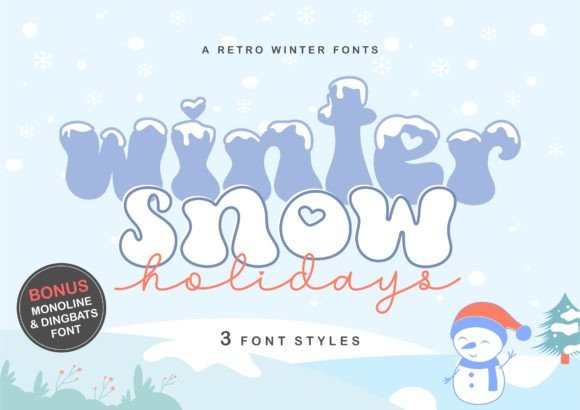
Wintersnow Holidays Font: Elevate Your Winter-Themed Projects with a Retro Twist
As the winter season approaches, designers and creatives are on the lookout for unique and captivating fonts to elevate their holiday-themed projects. If you’re searching for a font that embodies the spirit of winter with a retro and groovy touch, look no further than Wintersnow Holidays Font. This fantastic display font comes in three distinct styles – solid, outline, and snow effect – ensuring that your Christmas or winter-themed projects stand out with a mesmerizing outcome.
Key Features of Wintersnow Holidays Font
- Retro and Groovy Design: Wintersnow Holidays Font boasts a unique, vintage-inspired design that adds a fun and playful touch to any winter-themed project.
- Three Distinct Styles: The font comes in three styles: solid, outline, and snow effect, providing versatility and allowing you to experiment with different looks to suit your project’s needs.
- High-Quality and Readable: Designed with high-quality and readability in mind, Wintersnow Holidays Font ensures that your message is conveyed clearly and effectively, even at smaller sizes.
Design Tips for Using Wintersnow Holidays Font
To make the most of Wintersnow Holidays Font, consider the following design tips:
- Mix and Match Styles: Combine the solid, outline, and snow effect styles to create visually appealing contrasts and hierarchies within your design.
- Pair with Complementary Fonts: For body text or secondary headings, pair Wintersnow Holidays Font with clean, sans-serif fonts to maintain readability and create a balanced look.
- Experiment with Colors: While traditional winter colors like red, green, and blue work well, don’t be afraid to experiment with metallic colors or pastels to give your design a unique twist.
- Utilize Snow Effect Wisely: The snow effect style can add a whimsical touch to your designs. Use it sparingly for headings or highlights to draw attention without overwhelming the viewer.
Project Ideas Featuring Wintersnow Holidays Font
Wintersnow Holidays Font is incredibly versatile and can be used in a variety of winter and holiday-themed projects, including:
- Christmas Cards and Invitations: Add a personal touch to your holiday greetings with custom-designed cards and invitations.
- Winter Marketing Campaigns: Elevate your brand’s winter promotions with eye-catching posters, flyers, and social media graphics.
- Holiday Website Banners: Capture the attention of website visitors with festive banners that incorporate Wintersnow Holidays Font.
- Social Media Posts: Stand out on social media platforms with custom-designed posts and stories that utilize the font’s unique styles.
- Packaging Design: For brands offering holiday-themed products, use Wintersnow Holidays Font on packaging to convey the festive spirit.
The Benefits of Using Wintersnow Holidays Font
Choosing Wintersnow Holidays Font for your winter-themed projects comes with several benefits:
- Uniqueness: The font’s retro and groovy design ensures your projects stand out from the crowd.
- Versatility: With three distinct styles, you can adapt the font to suit various design needs and preferences.
- Time-Saving: High-quality and ready-to-use, Wintersnow Holidays Font saves you time in the design process.
- Cost-Effective: Offering a unique and versatile design, the font provides excellent value for its cost.
Wintersnow Holidays Font is a fantastic addition to any designer’s toolkit, especially those looking to create captivating winter and holiday-themed projects. Its retro and groovy design, combined with three versatile styles, ensures that your designs will have a unique and festive appeal. Whether you’re working on Christmas cards, winter marketing campaigns, or holiday website banners, this font is sure to elevate your projects and leave a lasting impression on your audience.